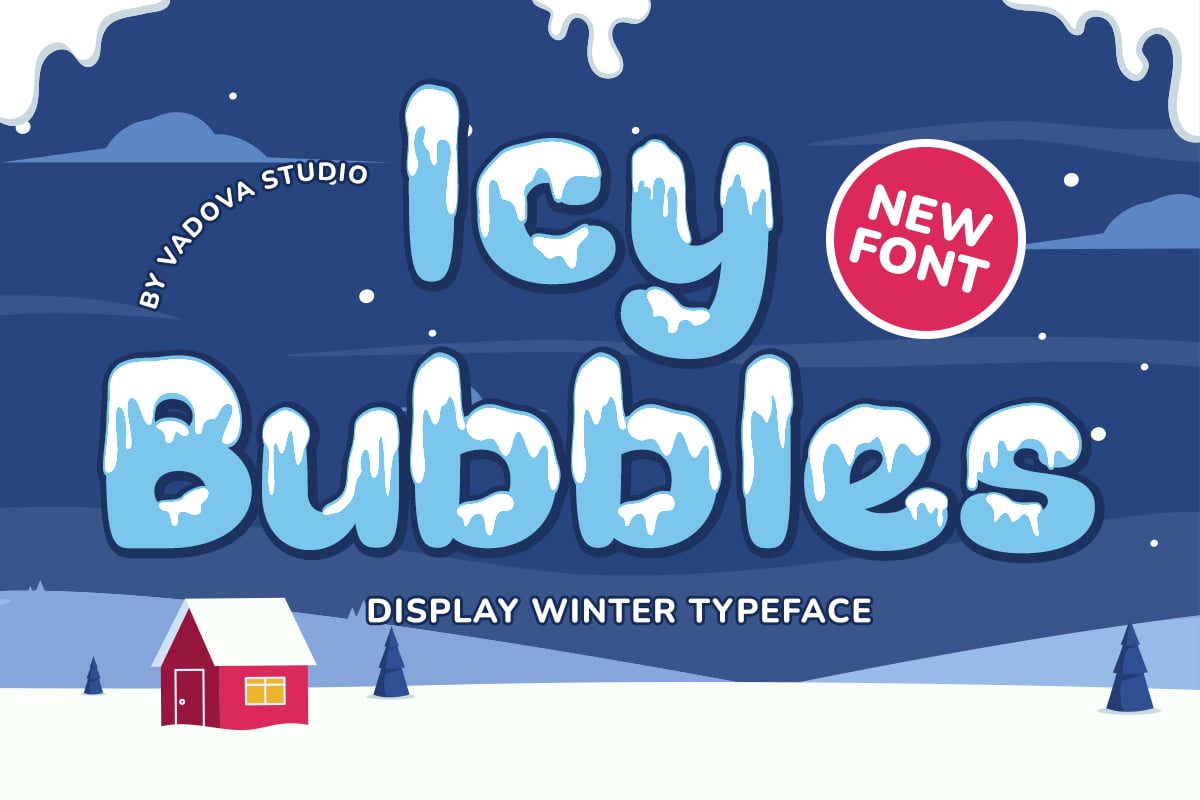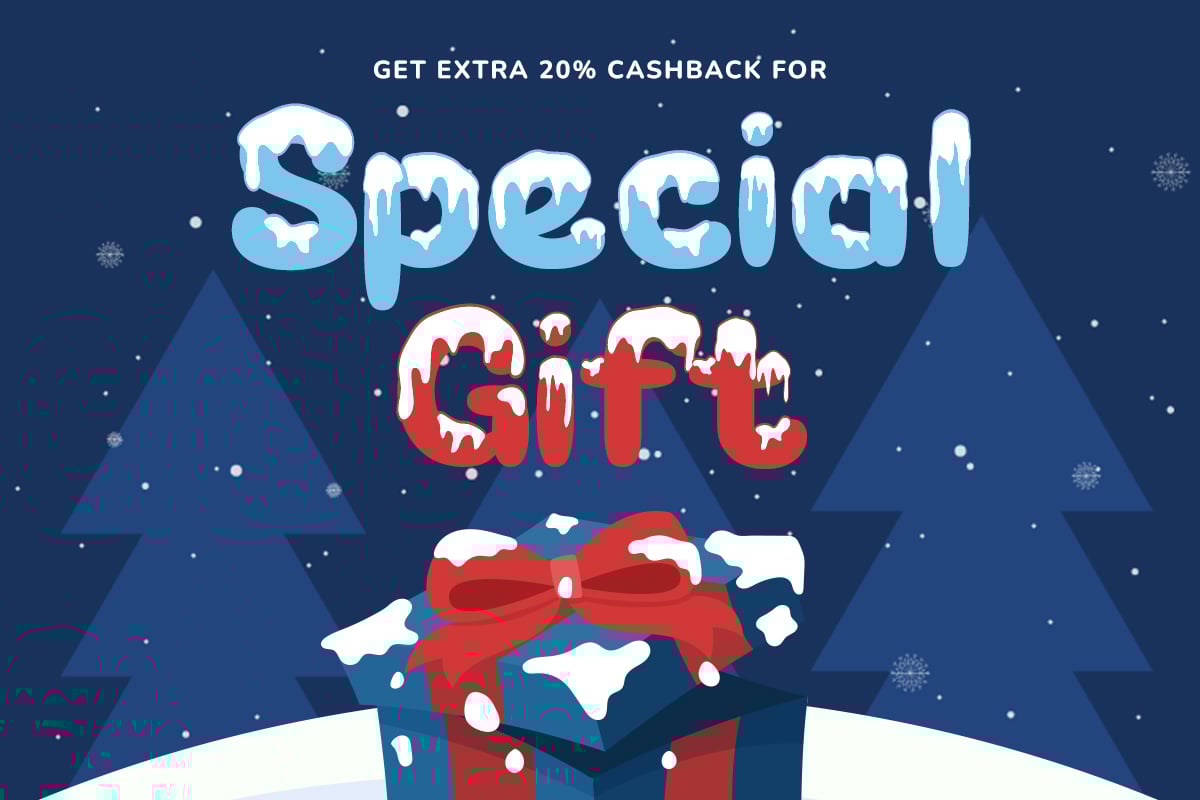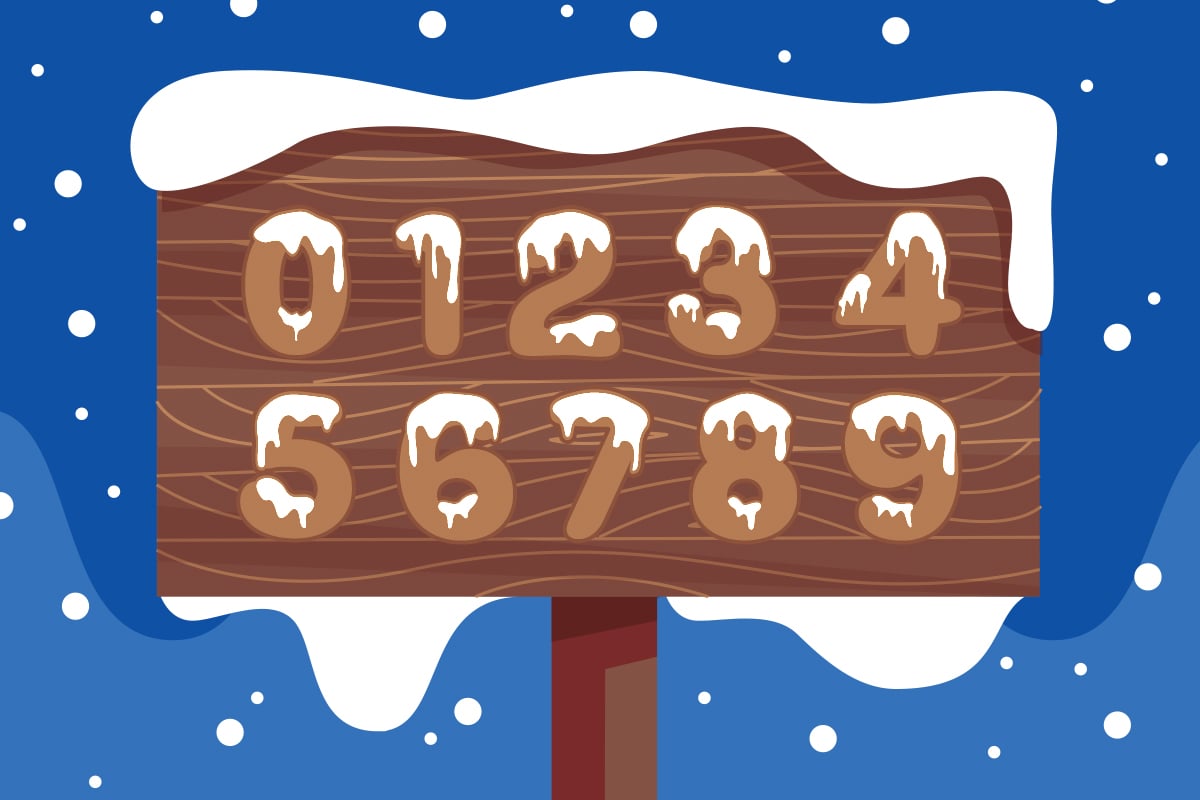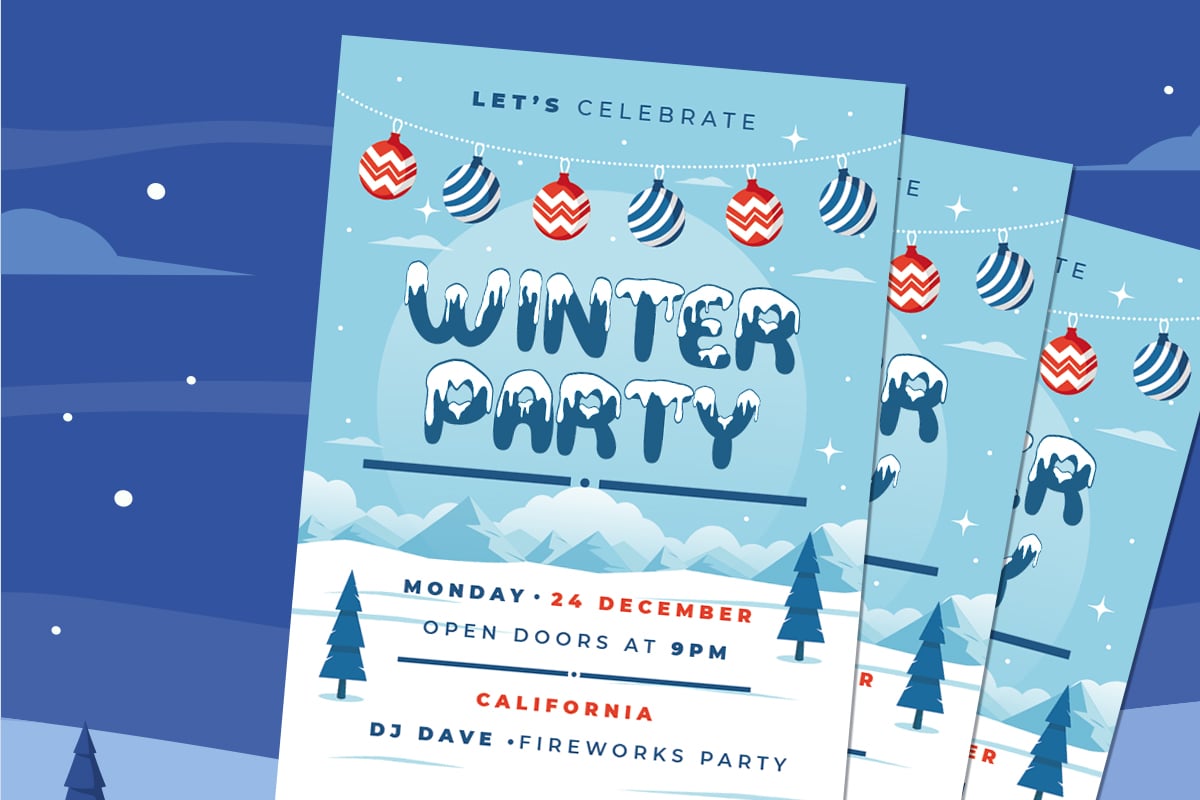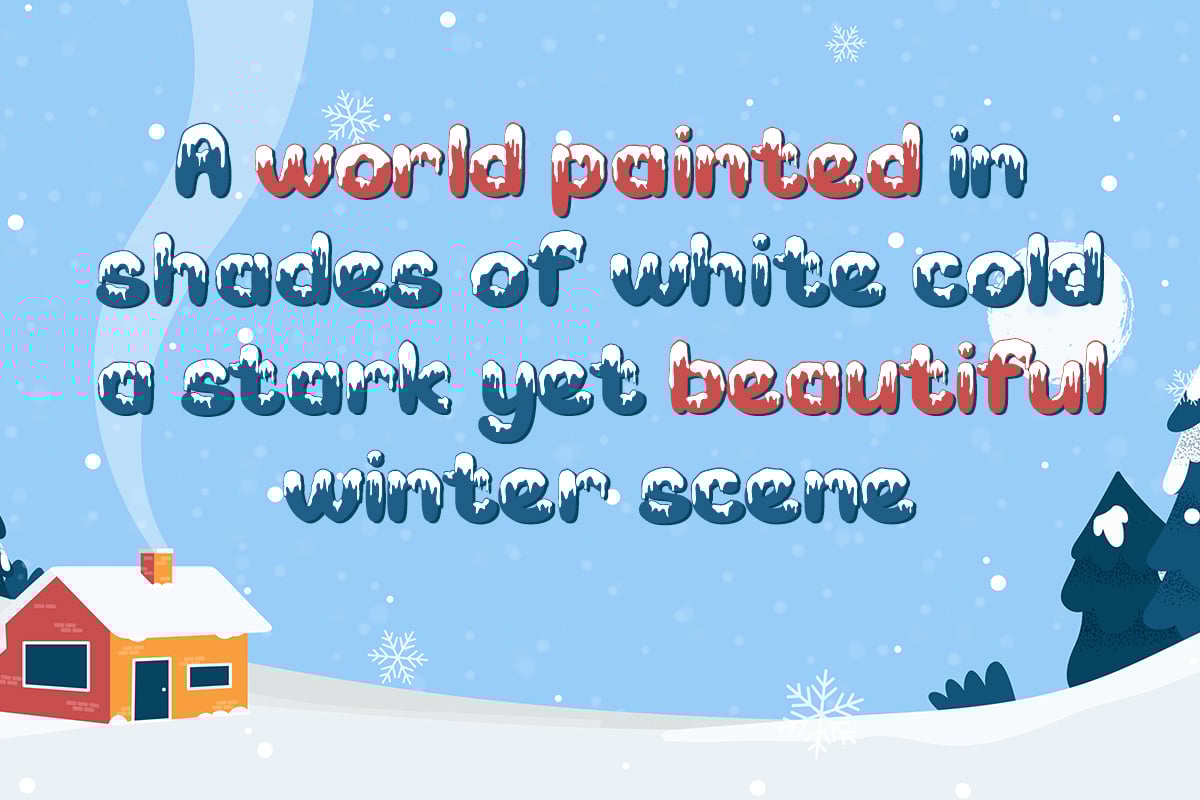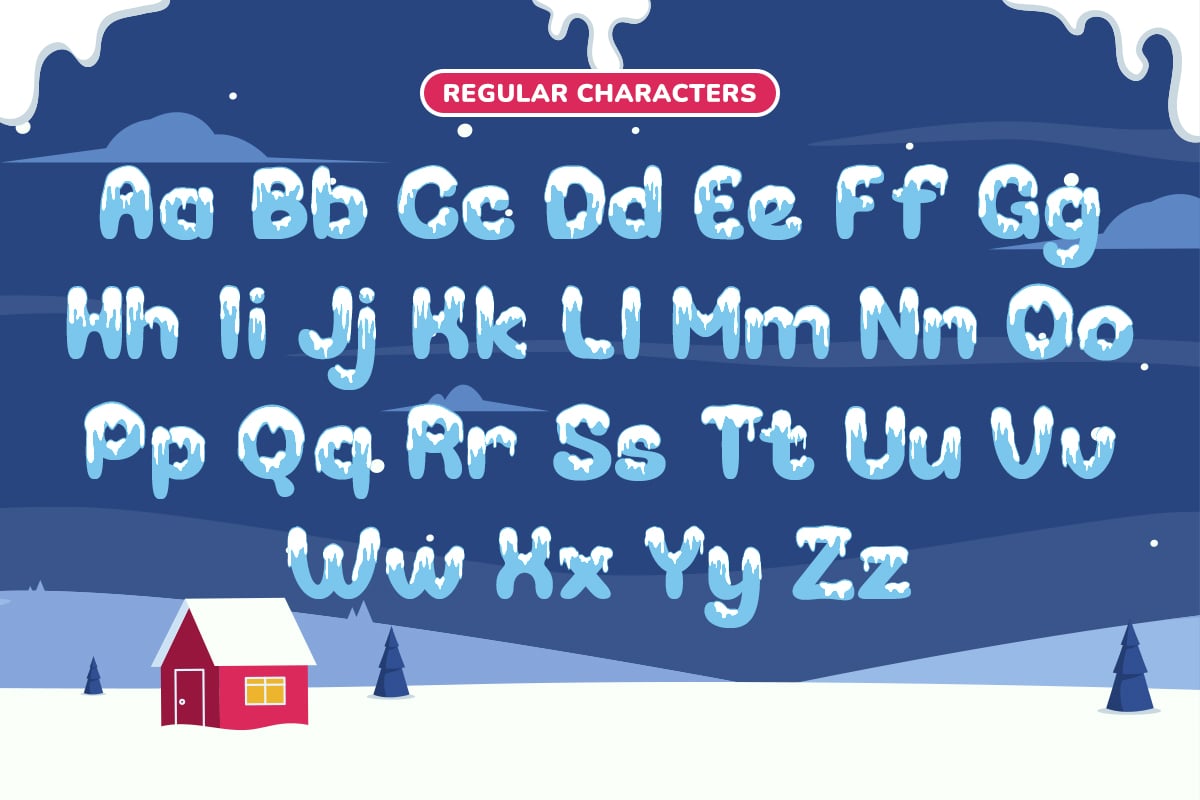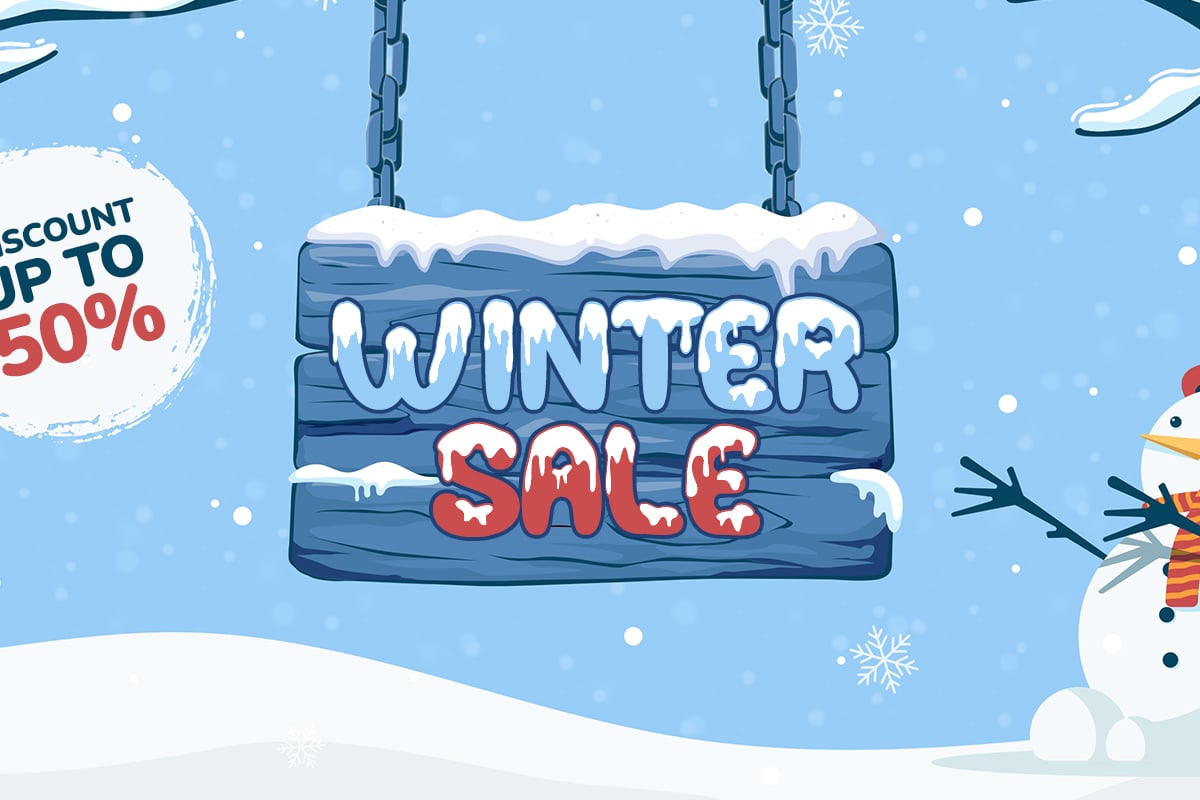
Icy Bubbles Display Winter Font
Elevate your designs with Icy Bubbles Display Winter Font, a modern font perfect for adding elegance and style to your projects. Whether it’s for quotes, logotypes, magazine headers, or more, this versatile typeface ensures your text stands out beautifully.
- Uppercase & Lowercase characters
- Numeral & Punctuations